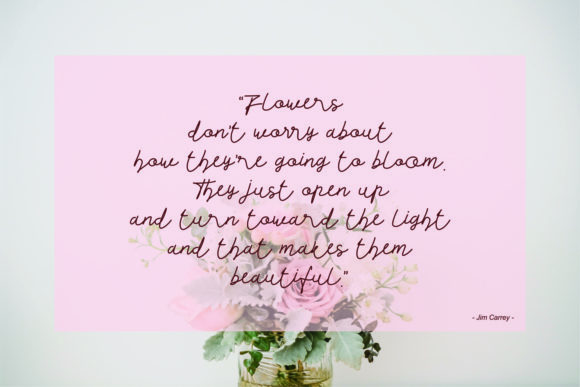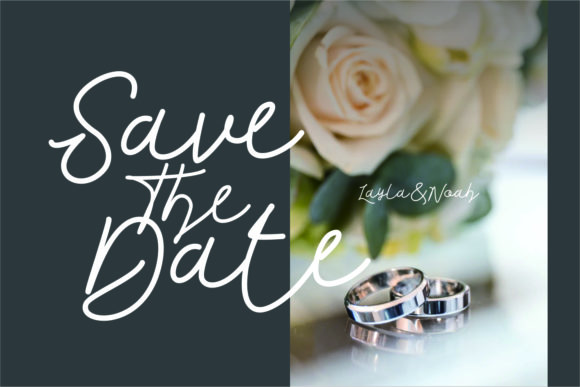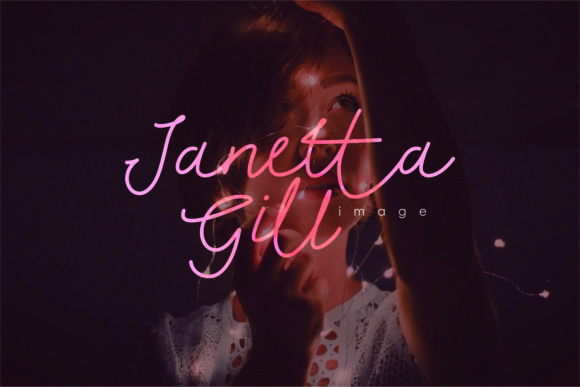
About Flowee Font
Flowee is a lovely script font, featuring a stylish flow. It looks beautiful on a variety of designs requiring a personalized style, such as wedding invitations, thank you cards, weddings, greeting cards, logos and so on.